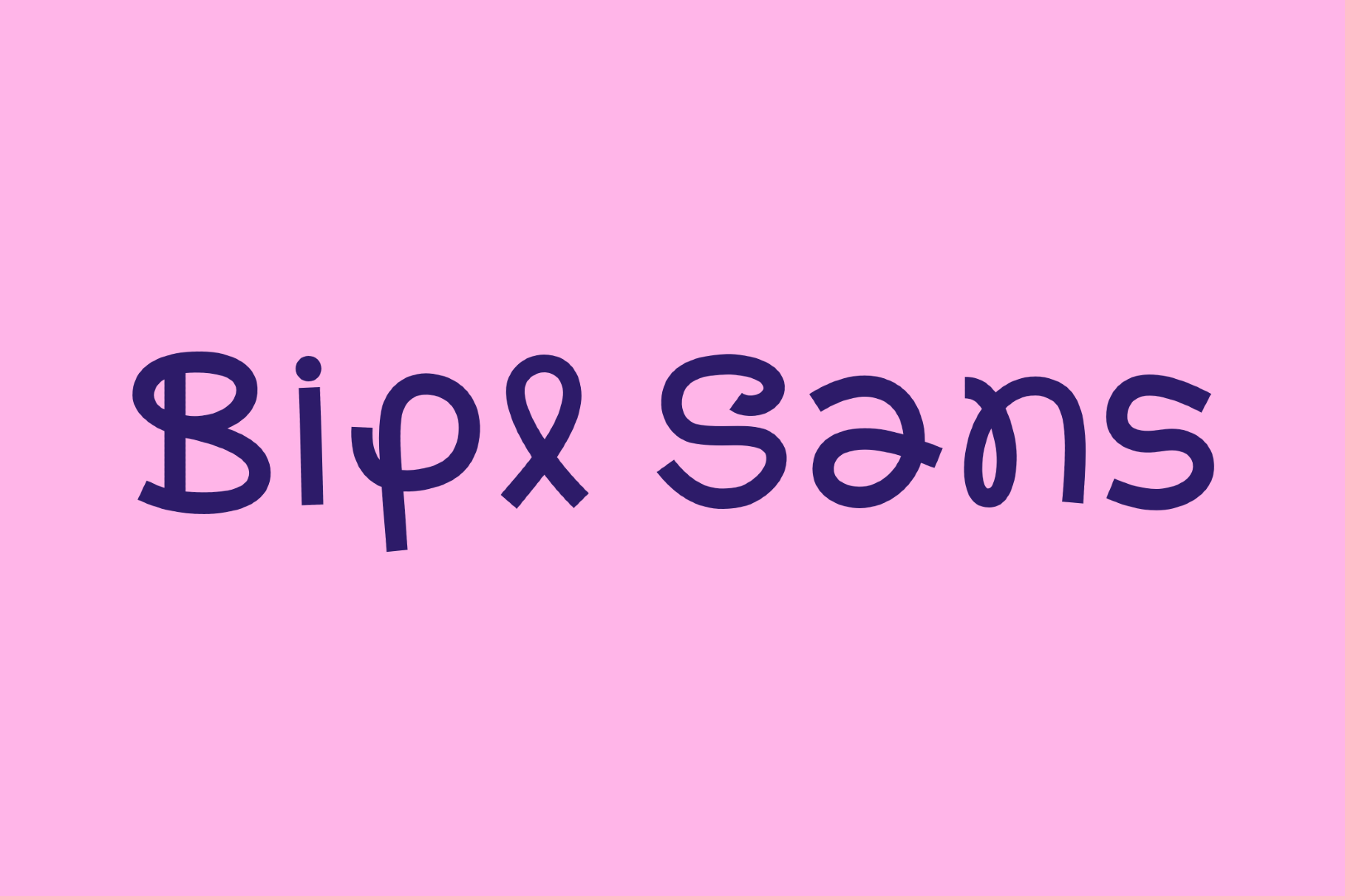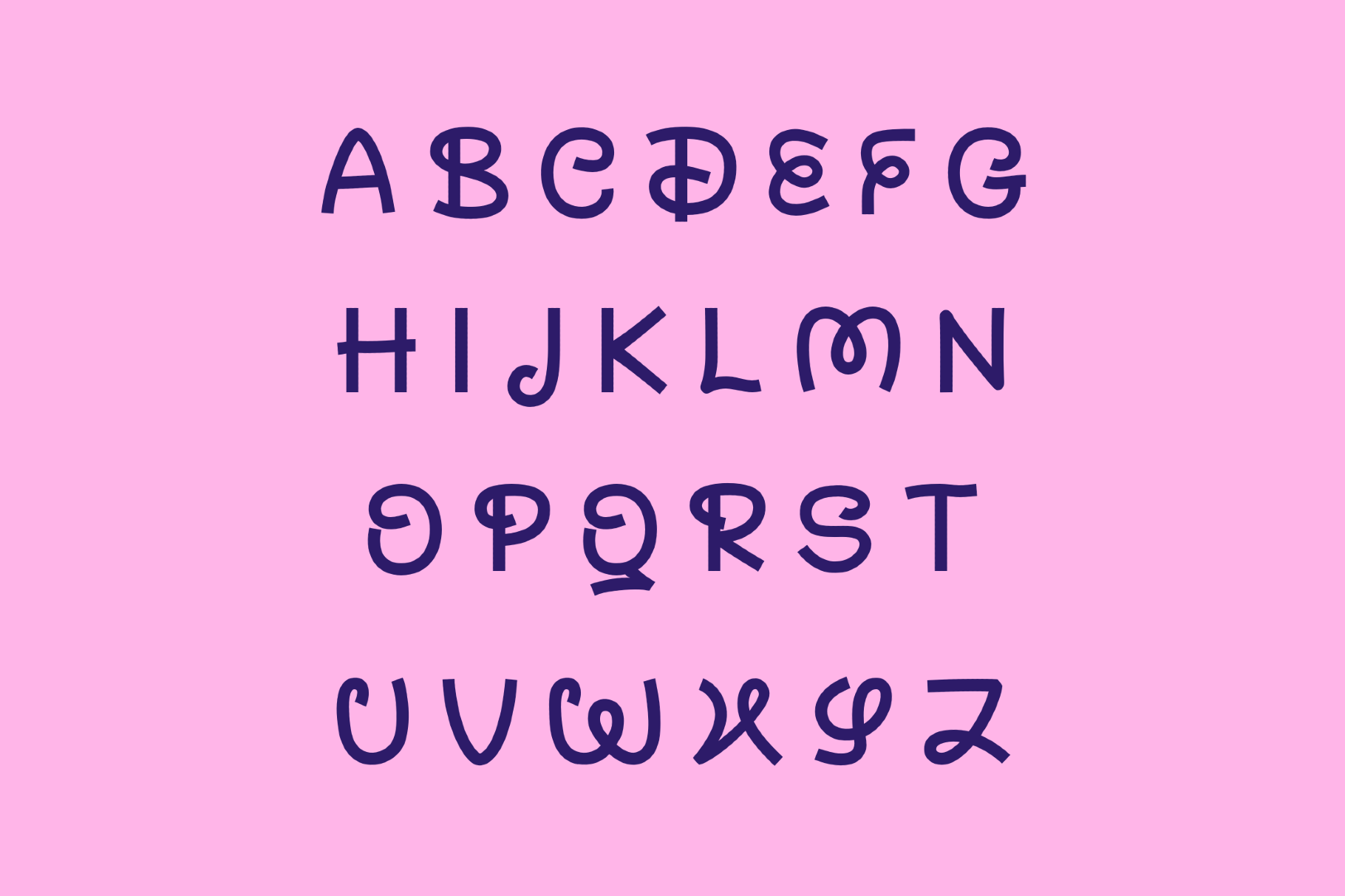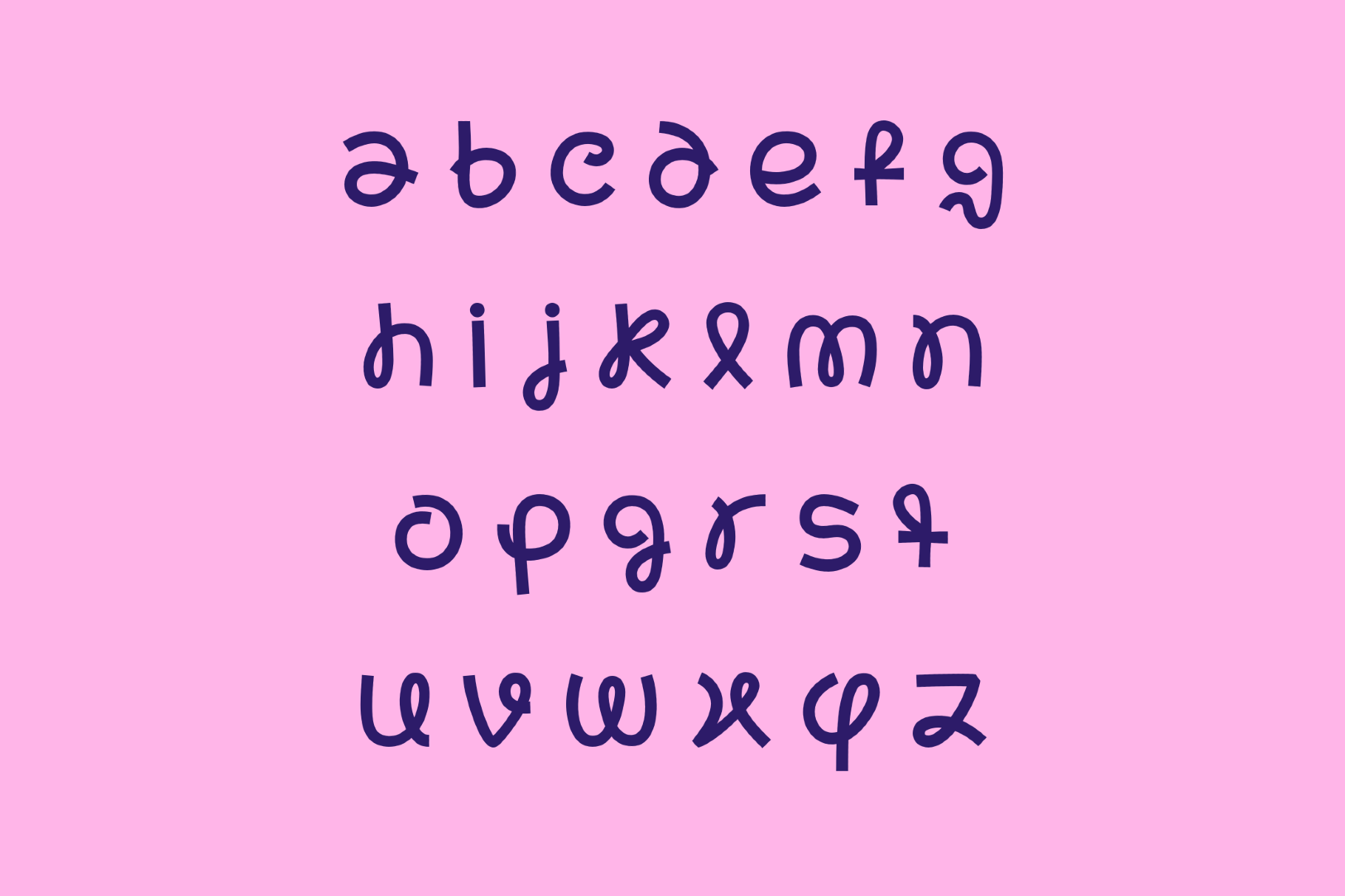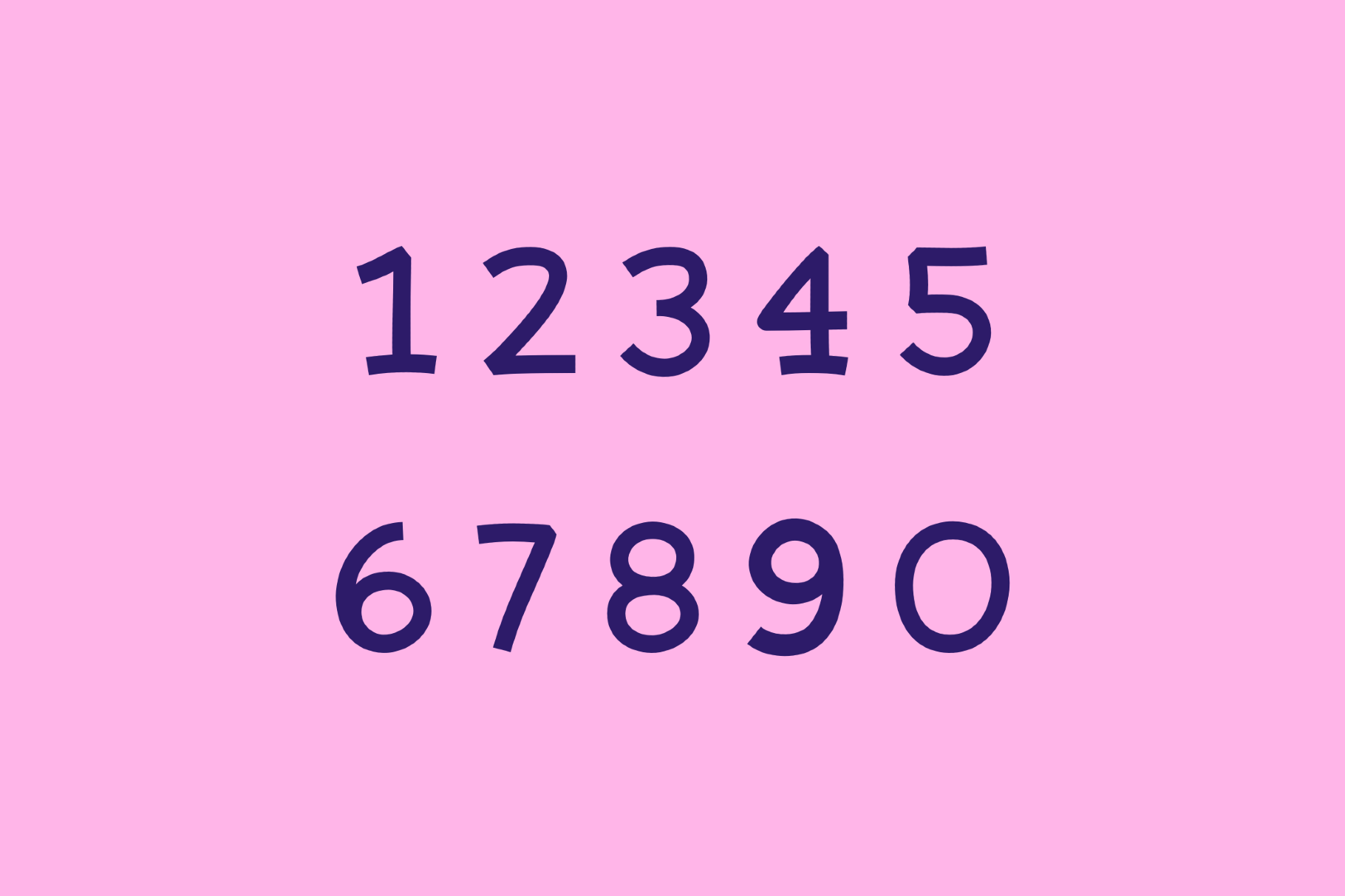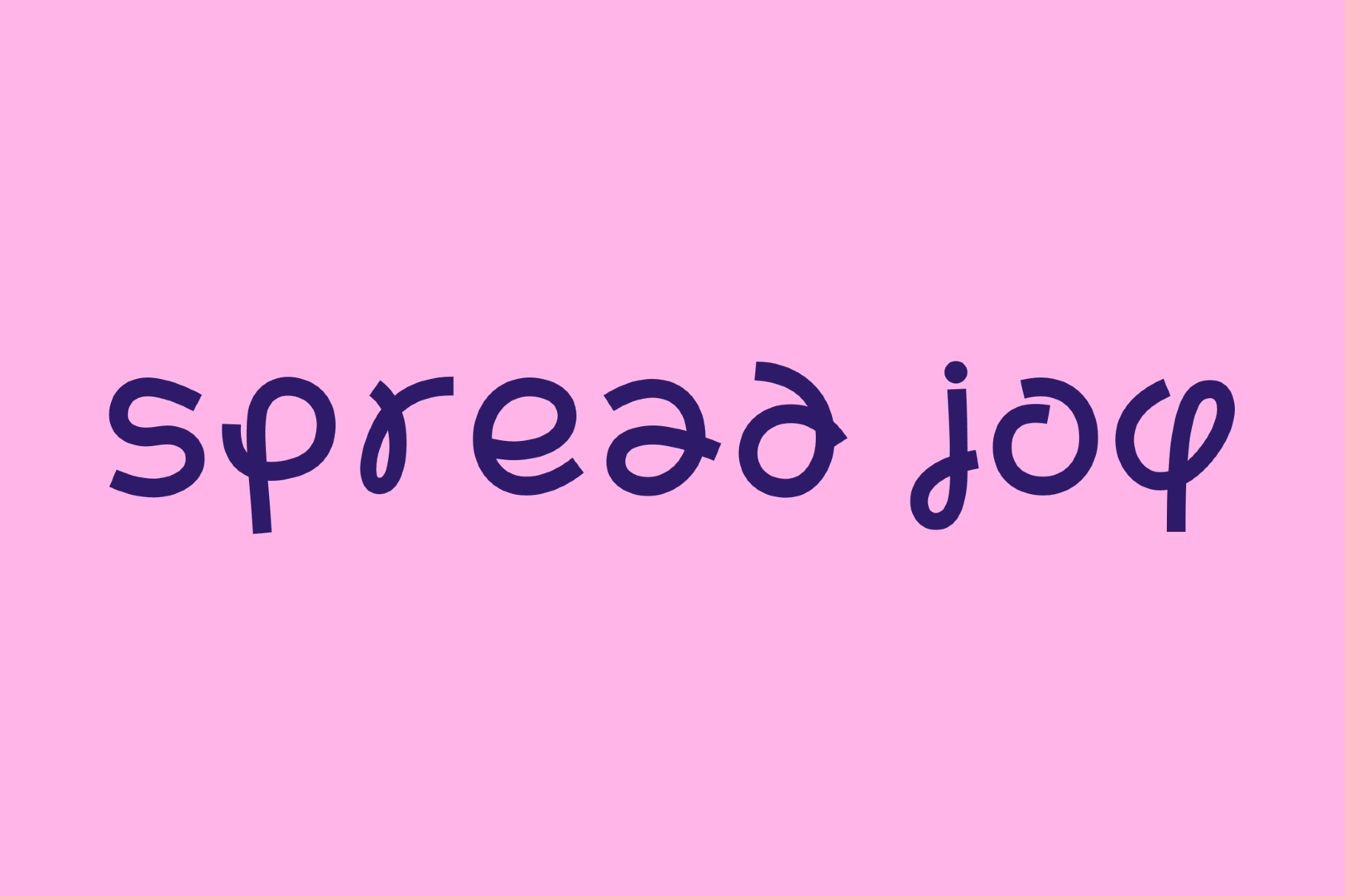
Bipl Sans Font
Bipl Sans
Bipl Sans is a whimsical hand-drawn sans with looping strokes and lively twists that recall children’s book covers, marker lettering and cheerful craft-paper graphics. The offbeat playful bounce of the type feels especially at home in kids’ branding, party invites, poster titles, sticker packs, packaging, social posts and logo sketches.